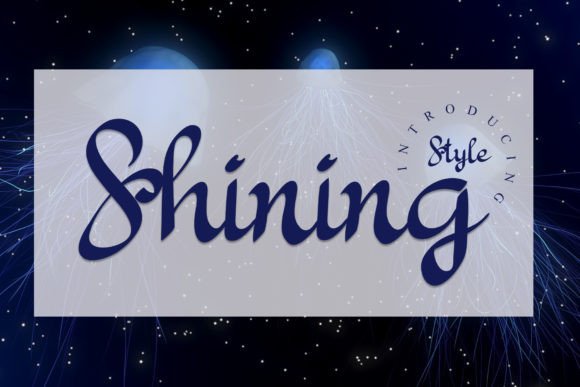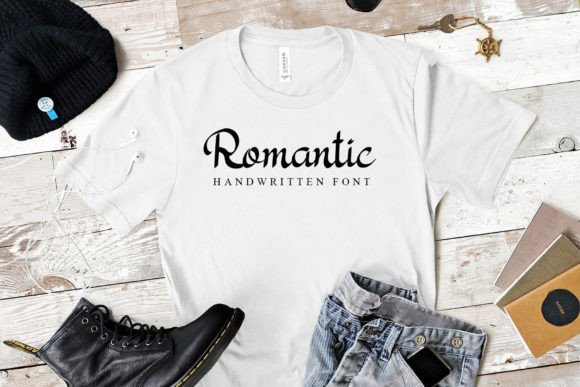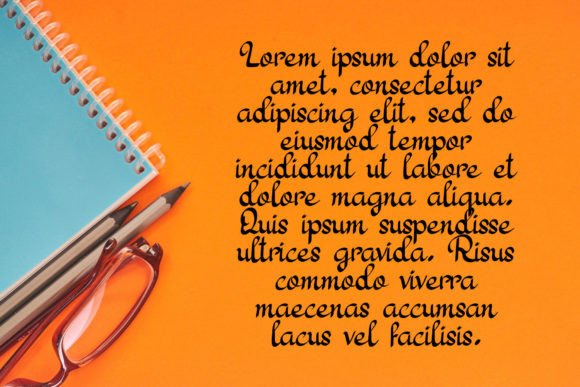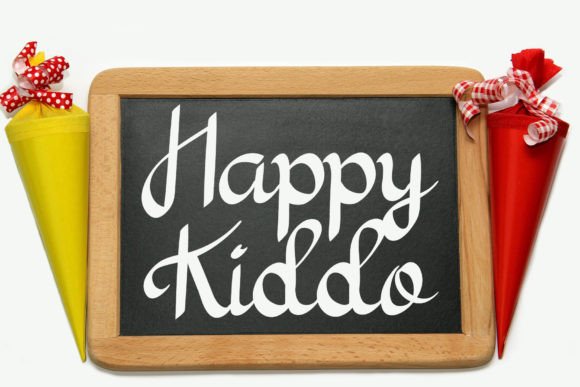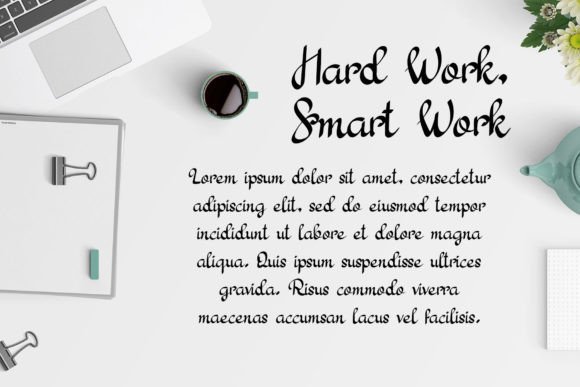
Shining Font
A Unique and Elegant Handwritten Font
Shining Font is a unique and elegant handwritten typeface that combines beauty with sophistication. Its varied baseline and natural, hand-made touch make it perfect for projects that require a personalized, authentic feel. Whether you’re working on wedding invitations, logos, or greeting cards, this font brings a distinctive, romantic appeal to any design, ensuring it stands out with a timeless and elegant aesthetic.
Perfect for Wedding Invitations and Special Occasions
For wedding invitations and special event stationery, the Shining Font is an ideal choice. Whether you’re designing save-the-dates, thank-you cards, or event programs, this font adds an elegant, personal touch to your invitations. Its flowing, handwritten style makes your wedding stationery feel romantic, while its timeless design ensures your materials leave a lasting impression on your guests. Perfect for formal weddings, gala events, or any occasion that requires a refined and personalized feel.
Ideal for Logos and Branding Projects
For logos and branding, the Shining Font gives your brand a unique and memorable identity. Whether you’re designing a luxury brand logo, personalized business identity, or custom brand mark, this font ensures that your business stands out with a sophisticated, handwritten touch. Its natural, flowing strokes make it perfect for artisanal brands, boutiques, or any business that wants to convey creativity, quality, and a personal connection.
Great for Greeting Cards and Invitations
The Shining Font is perfect for creating greeting cards and invitations for various occasions. Whether you’re designing birthday cards, holiday greetings, or party invitations, this font adds a charming, elegant element to your designs. Its delicate, handwritten nature makes it ideal for personalized messages, ensuring your cards and invitations feel both authentic and memorable. The timeless appeal of this font ensures it remains relevant for all kinds of celebrations and milestones.
Ideal for Business Cards and Promotional Materials
For business cards and promotional materials, the Shining Font provides a professional, yet personalized look. Whether you’re designing for corporate branding, local businesses, or freelancers, this font gives your business identity a high-end, artistic touch. Its elegant handwritten style makes it perfect for luxury services, creative industries, or any brand seeking a unique, standout design.
Great for Billboards and Advertising
For billboards and advertising, the Shining Font ensures that your text makes a bold statement. Whether you’re designing for outdoor advertising, event promotions, or brand awareness, this font offers clarity and elegance, even from a distance. Its natural handwritten style adds a personal and approachable feel, making it ideal for advertisements that need to grab attention while maintaining a refined and distinctive appeal.
Versatile, Legible, and Timeless
Despite its elegant handwritten design, the Shining Font remains legible and easy to use. Its smooth, consistent strokes ensure that your text is clear and readable, even at smaller sizes or when used in longer passages. Whether you’re using it for headlines, captions, or body text, this font strikes the perfect balance of creativity and readability, making it suitable for a variety of design applications.
The Shining Font is easy to use and integrates seamlessly into most design software. Whether you’re working on wedding invitations, branding materials, business cards, or social media content, this font ensures your designs look polished and professional while maintaining a personalized touch. Its versatility makes it perfect for both print and digital media, giving you the flexibility to use it across various design projects with ease.
Add Elegance and Timeless Beauty to Your Designs with Shining Font
If you’re looking for a unique, elegant handwritten font to enhance your designs, the Shining Font is the perfect choice. Whether you’re designing wedding invitations, logos, business cards, or advertisements, this font brings a timeless and personal touch to your work. Let the Shining Font help you create memorable, elegant designs that leave a lasting impression.